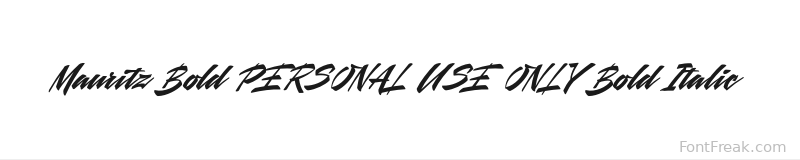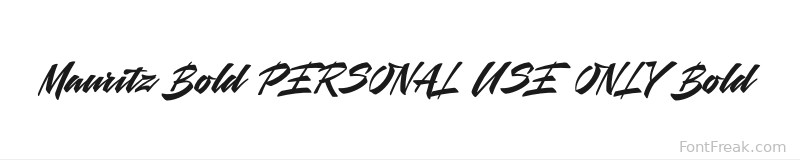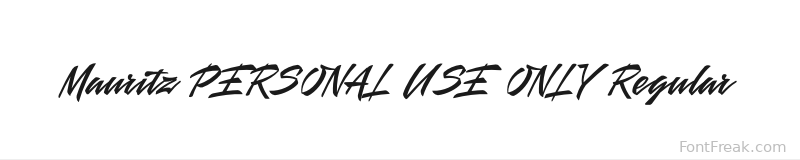
Mauritz Light PERSONAL USE Light Italic
About Mauritz Light PERSONAL USE Light Italic
The Mauritz Light PERSONAL USE Light Italic font by Mans Greback is a beautiful display typeface that embodies elegance and sophistication. This font falls into the category of script fonts, characterized by its flowing, cursive style that mimics the fluidity of handwritten text. The visual characteristics of this typeface include a light stroke weight, which delivers a delicate and airy feel. The contrast between thin and slightly thicker strokes adds a touch of dimension, while the generous spacing between letters enhances readability without sacrificing style. The italicized form introduces a dynamic quality, making it ideal for designs that require a sense of movement and grace.
This font is perfect for various applications, particularly in creative fields. It shines in wedding invitations, where its romantic flair can beautifully convey heartfelt messages. Additionally, it works wonderfully for movie posters, lending a dramatic touch that captures attention. Restaurant menus can also benefit from this typeface, as its elegant appearance can elevate the dining experience by presenting dishes in a sophisticated manner. Furthermore, small business owners and content creators will find this font valuable for branding purposes, allowing them to express their unique identity in a visually appealing way.
Targeting graphic designers, small business owners, and content creators, the Mauritz Light PERSONAL USE Light Italic font free download offers an accessible option for those looking to enhance their design projects without incurring costs. This font stands out not only for its aesthetic appeal but also for its versatility across various mediums. Whether you are crafting a personal project or a professional piece, this typeface adds an element of charm that is sure to leave a lasting impression.